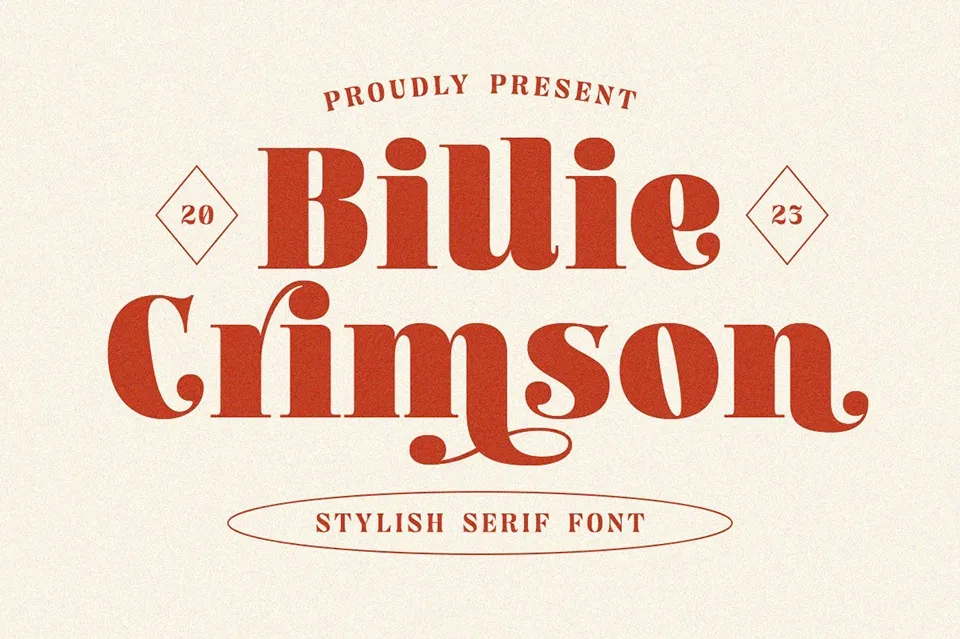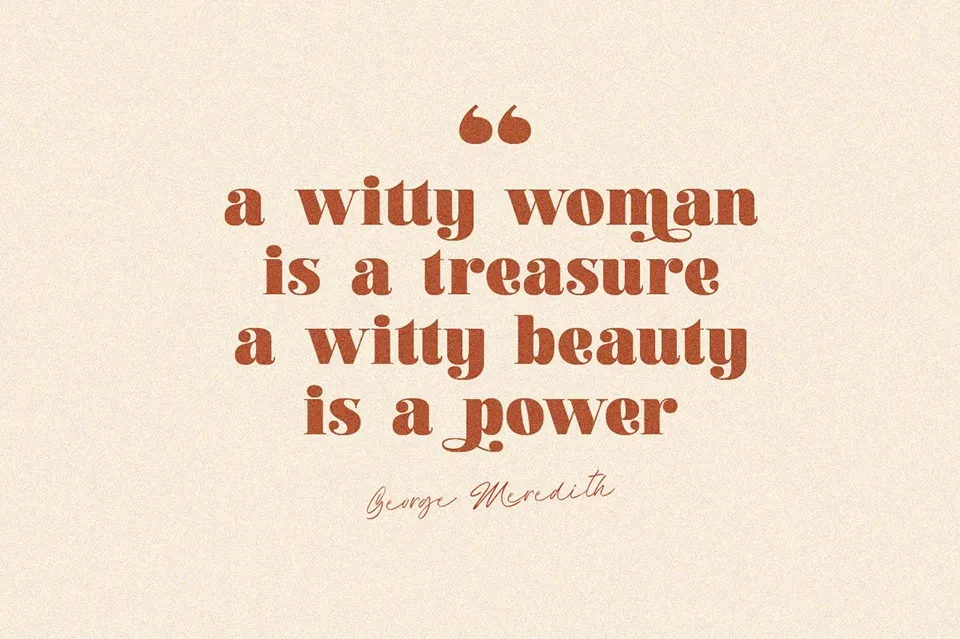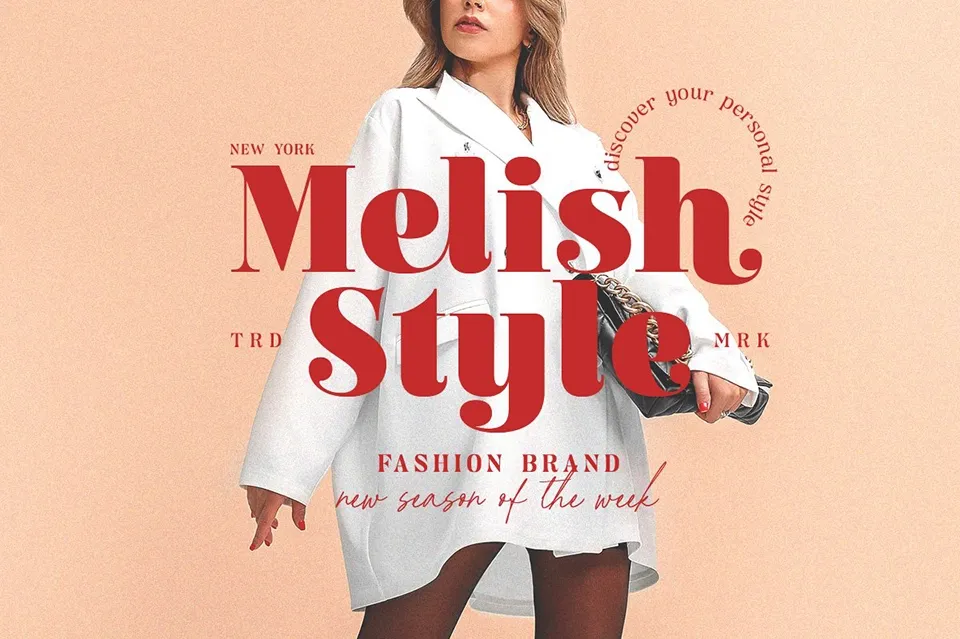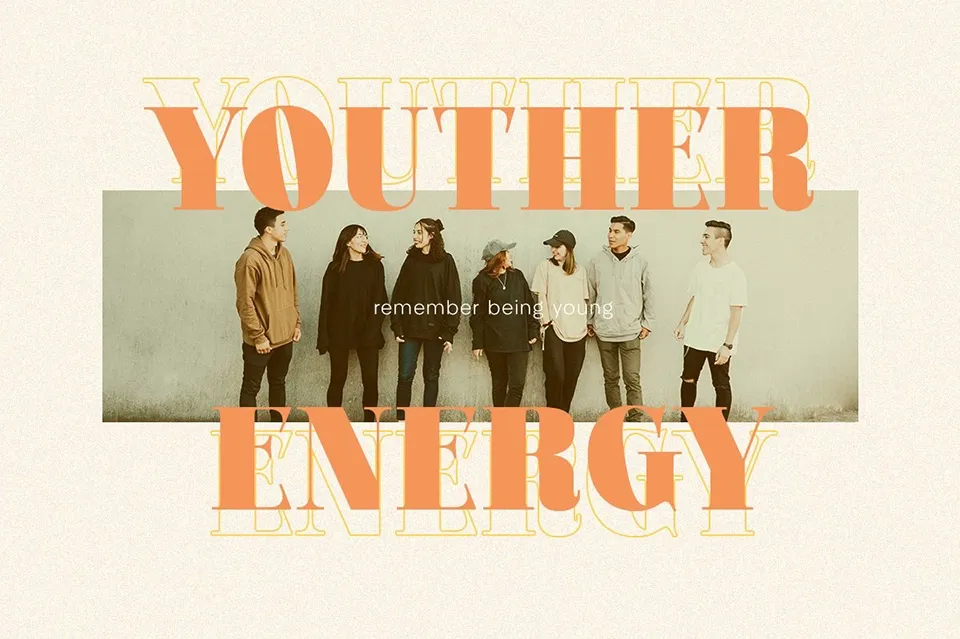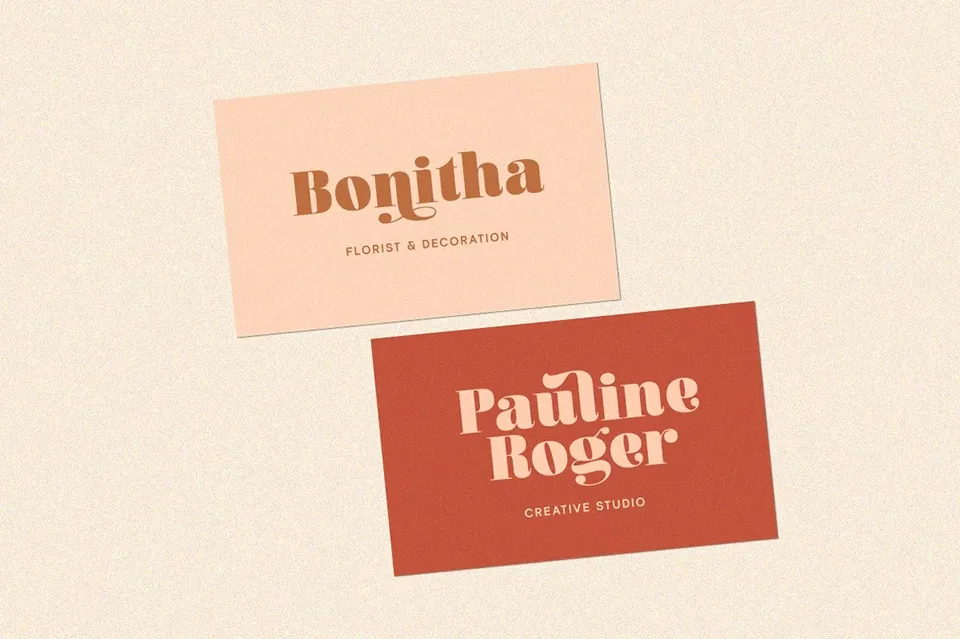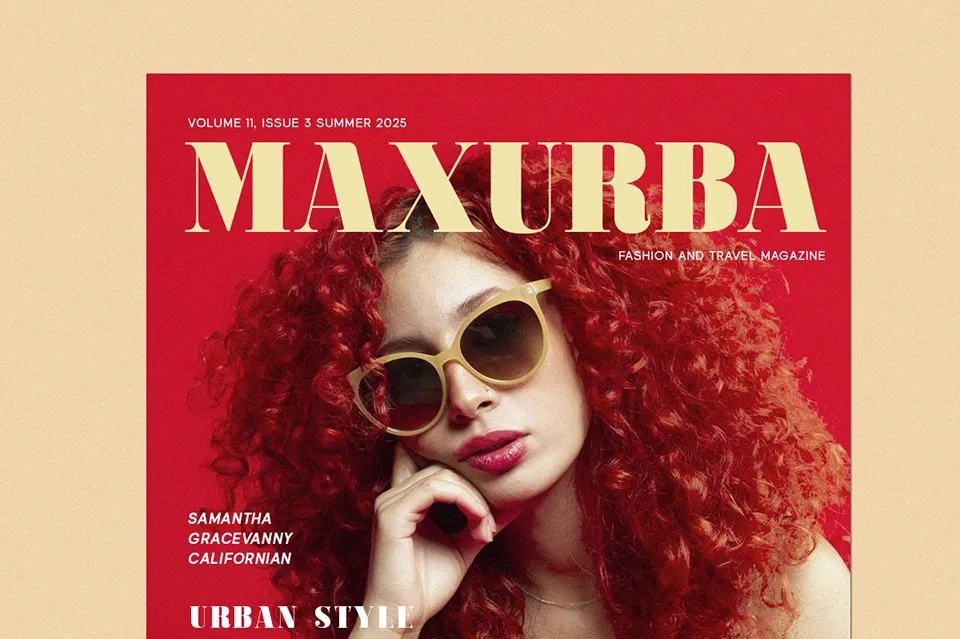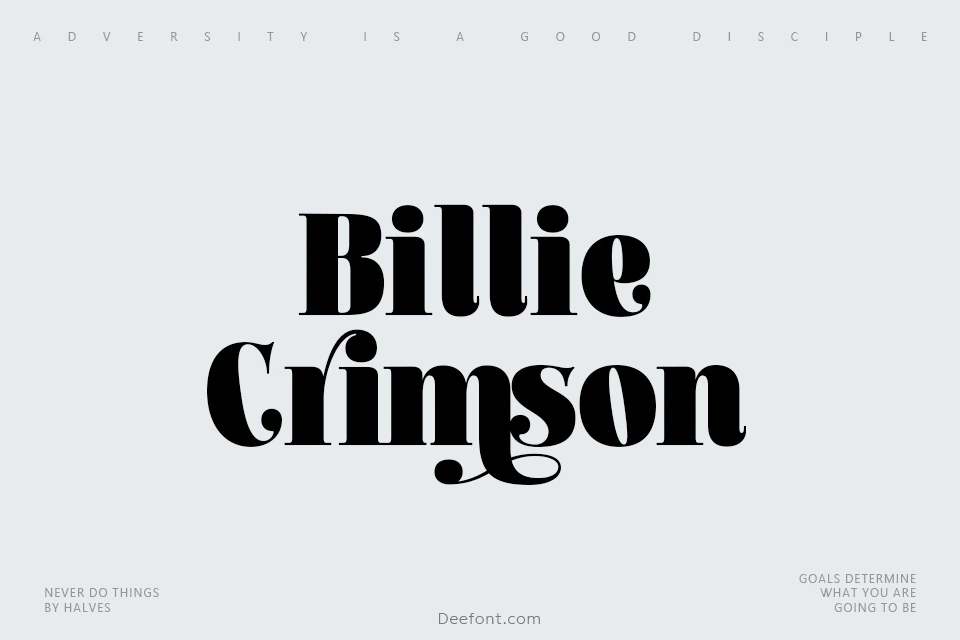
Billie Crimson Serif Font
Billie Crimson Serif Font is a stylish and classic serif typeface designed to exude elegance and timelessness. With its refined curves, alternate characters, and sophisticated look, this font is perfect for a wide range of design projects, including logos, invitations, labels, magazines, books, greeting cards, packaging, fashion, makeup, stationery, and advertising. The font is PUA encoded, allowing easy access to all glyphs and ligatures, and is ideal for designers seeking to add a touch of sophistication and uniqueness to their creations.